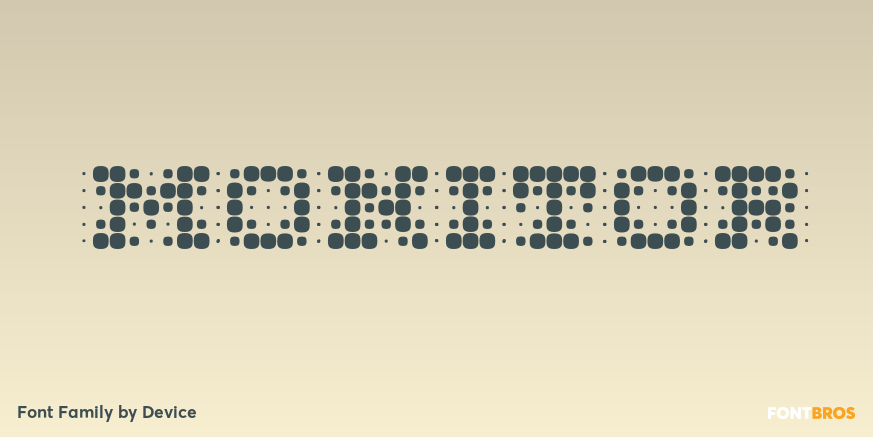
HomeFont BrosFuturisticMonitor FuturisticSpecial Effect Monitor FacebookXPinterestWhatsApp 1 of 1 About Monitor is an early experiment in TV-wall pixeldom, and has the unique property of becoming easier to read the further away one gets.  DOWNLOAD ON FONT BROSThis font is sold and delivered by Font Bros. Font Canyon may earn a commission if you buy through this link. People also explored Albania Juice Font RedRose Font William Rossella Font Median Font Stars Browther Font Evallia Font Felicity Font Fortune Teller Marylane Font 414 0 TagsMonitorMonitor Font Previous articleNyctophobiaNext articleCapturaNow LEAVE A REPLY Cancel reply Comment: Please enter your comment! Name:* Please enter your name here Email:* You have entered an incorrect email address! Please enter your email address here Website: Save my name, email, and website in this browser for the next time I comment. Personal Use Free Little Pigeon Personal Use Free Read more about this font Budmo Personal Use Free Read more about this font Wordan Personal Use Free Read more about this font Cuttie Personal Use Free Read more about this font BLOG Fonts That Capture the Spirit of New York City New York City is more than just a place—it’s an experience, a rhythm, a visual language... Elegant Wedding Invitation Fonts – Handwritten & Script Fonts How to Cut Any Font on Cricut: Convert a Font to SVG (Free) Where to Buy American Fonts Online in 2024